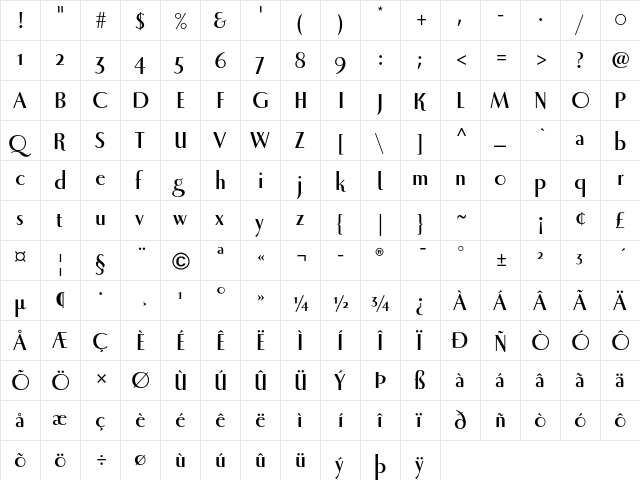
Luna ITC Std Bold
| Designer | Akira Kobayashi |
Design Context for Luna ITC Std Typeface
Luna ITC Std is a composed and adaptable typeface that performs quietly and consistently across a wide range of design contexts. Its bold stroke weight gives it real presence on the page.